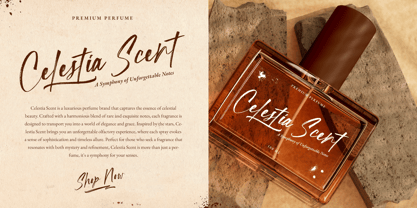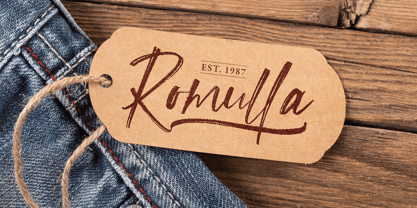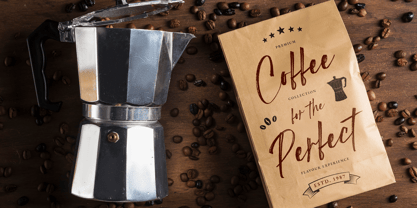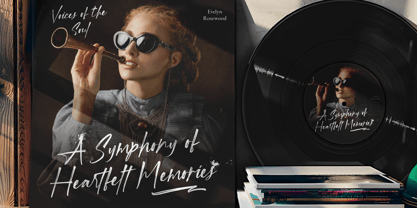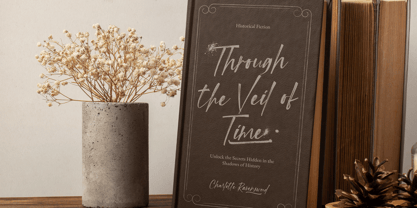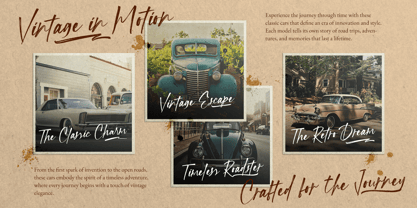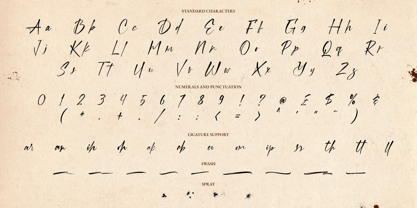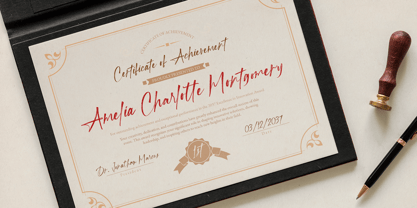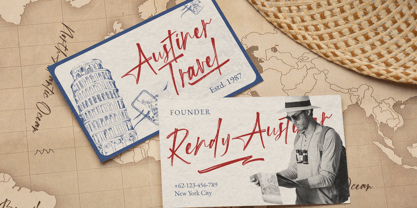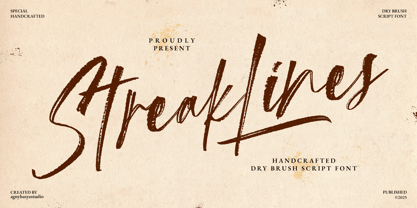
Streaklines
by Agny Hasya Studio
The Streaklines Font Family was designed by Firman Maulana and published by Agny Hasya Studio. Streaklines contains 1 styles. More about this family
Streaklines is a dry brush script font that combines casual charm with timeless elegance, perfectly balancing classic handwriting and modern design. Its textured strokes feel natural and expressive, making it a versatile choice for both casual and formal projects. It is ideal for a wide range of design purposes. From stylish branding to invitations, headlines to social media posts, and especially for authentic signature designs, this font adapts effortlessly to different moods, professional yet approachable, refined yet full of character. Every glyph is carefully crafted to add a personal, handwritten touch that feels genuine and lively. Stay creative, stay versatile, and keep designing with Streaklines. Warm regards, agnyhasyastudio
Designers: Firman Maulana
Foundry: Agny Hasya Studio